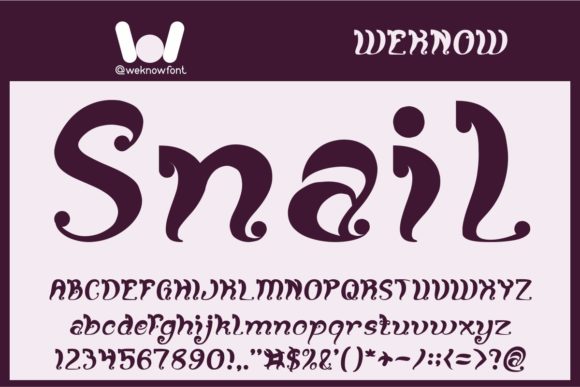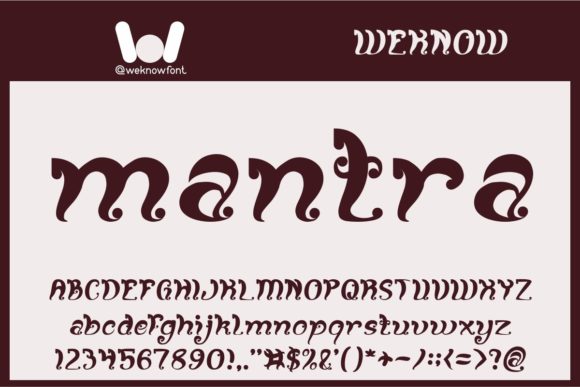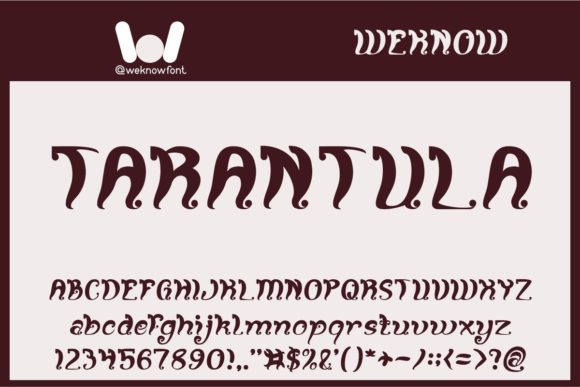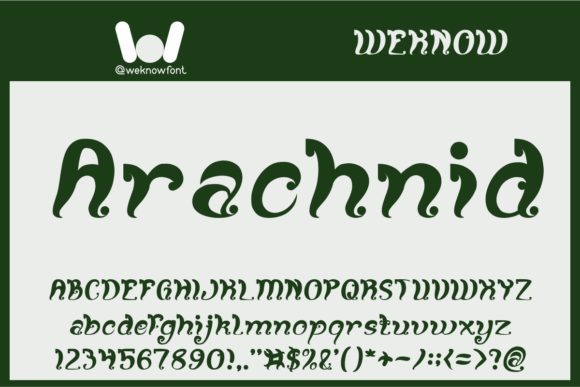
Fancy Curly Font: Elevate Your Designs with Elegance and Charm
In the world of typography, a well-chosen font can make all the difference in transforming a design from ordinary to extraordinary. For those seeking a touch of sophistication and whimsy, the Fancy Curly Font is an exquisite choice. This stunning display font is specifically crafted to infuse your designs with a beautiful and refreshing look, perfect for designers and crafters looking to make a statement.
The Essence of Fancy Curly Font
Fancy Curly Font is a chic and charming display font that boasts elegant, curly lines and a sophisticated flair. Its unique design makes it an ideal choice for a variety of creative projects, from wedding invitations and branding materials to social media graphics and digital art. With its beautiful and refreshing aesthetic, this font is sure to captivate your audience and leave a lasting impression.
Key Features of Fancy Curly Font
- Elegant Curly Lines: The font’s distinctive curly lines add a touch of whimsy and sophistication, making it perfect for designs that require a bit of flair.
- Chic and Charming: Fancy Curly Font exudes a sense of elegance and refinement, making it suitable for high-end designs and luxury brands.
- Display Font: This font is specifically designed for display purposes, making it ideal for headlines, titles, and other prominent text elements.
- Refreshing Look: The font’s unique design ensures that your designs will stand out from the crowd and leave a lasting impression on your audience.
Fancy Curly Font is a versatile font that can be used in a wide range of creative projects, including:
- Wedding Invitations: Add a touch of elegance and sophistication to your wedding invitations and stationery.
- Branding Materials: Use Fancy Curly Font to create stunning logos, business cards, and other branding materials that reflect your brand’s personality.
- Social Media Graphics: Elevate your social media presence with eye-catching graphics and typography that showcase your brand’s style.
- Digital Art: Incorporate Fancy Curly Font into your digital art projects, such as illustrations, paintings, and mixed media designs.
Tips for Using Fancy Curly Font
To get the most out of Fancy Curly Font, consider the following tips:
- Pair with Simple Fonts: Pair Fancy Curly Font with simple, clean fonts to create visual interest and balance.
- Use for Headlines: Use Fancy Curly Font for headlines and titles to create a bold and eye-catching effect.
- Experiment with Colors: Try out different colors and textures to add depth and visual interest to your designs.
Fancy Curly Font is a stunning display font that can elevate your designs with its elegant, curly lines and sophisticated flair. With its beautiful and refreshing aesthetic, this font is perfect for designers and crafters looking to add a touch of whimsy and refinement to their creative projects. Whether you’re working on wedding invitations, branding materials, social media graphics, or digital art, Fancy Curly Font is sure to make a lasting impression.